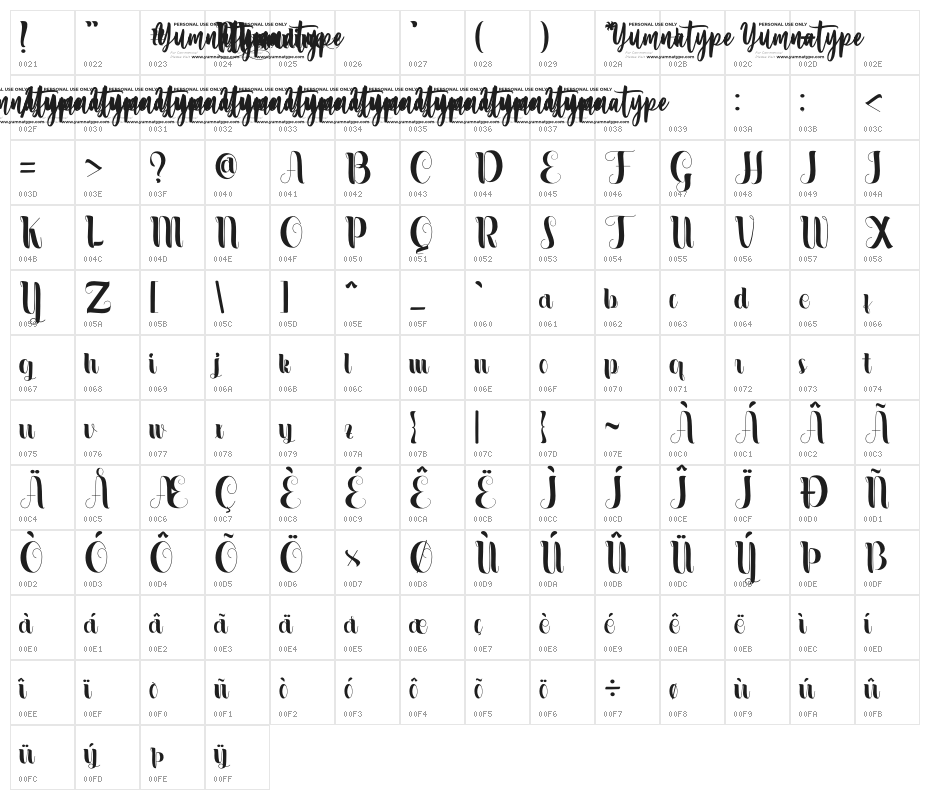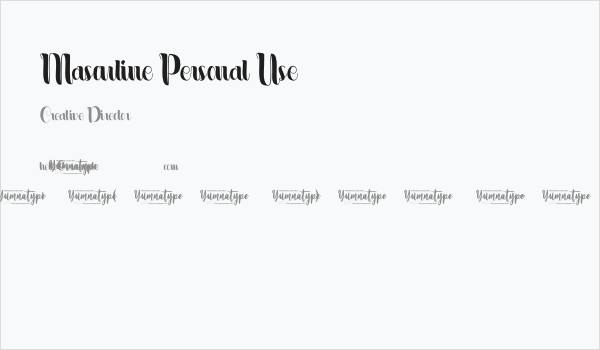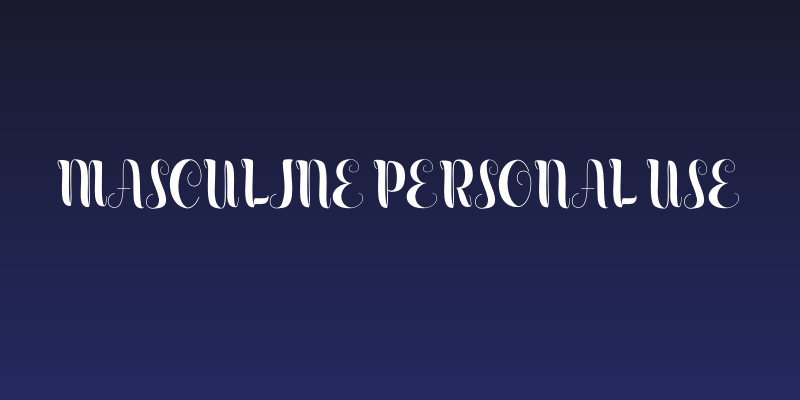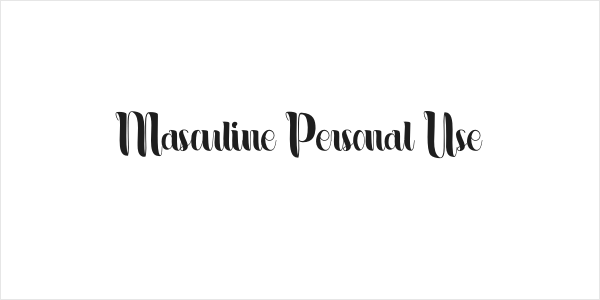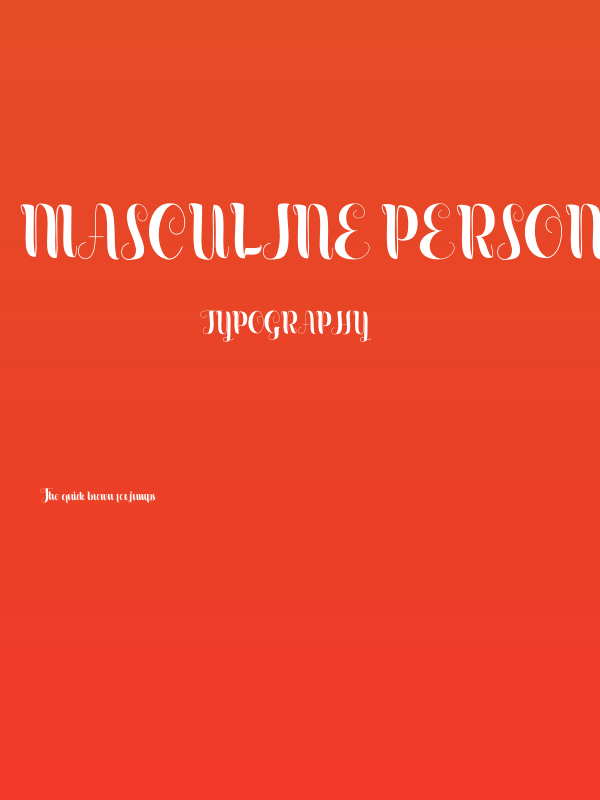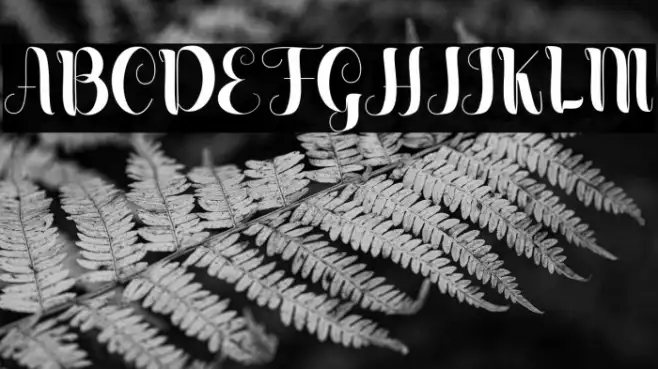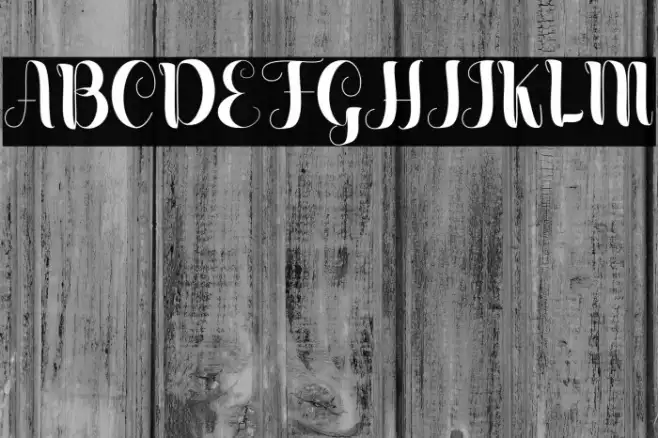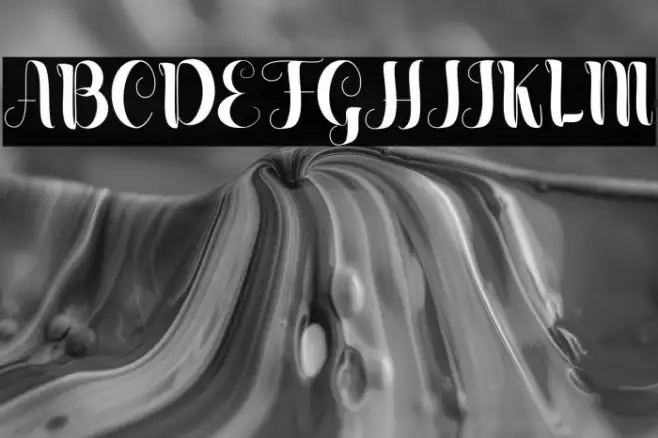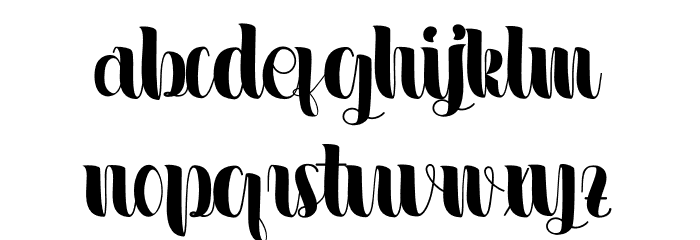
Masculine Personal Use Font
This font features a bold and expressive script style with a strong presence. The uppercase letters are characterized by their sweeping curves and elegant flourishes, giving them a dynamic and artistic appearance. The lowercase letters maintain a consistent flow with a slightly more compact design, yet they retain the same decorative flair. The overall design is reminiscent of calligraphy, with thick and thin strokes that create a high contrast, adding to its dramatic effect. The font's unique style makes it suitable for creative and eye-catching designs.
| Proposed Projects | Ideal for branding, invitations, posters, and any design that requires a touch of elegance and creativity. |